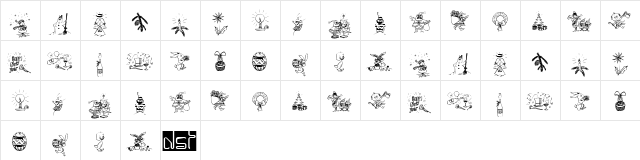
Typographers Holidayfont Regular
| Designer | Dieter Steffmann |
Design Context for Typographers Holidayfont Typeface
Typographers Holidayfont is a composed and adaptable typeface that performs quietly and consistently across a wide range of design contexts.